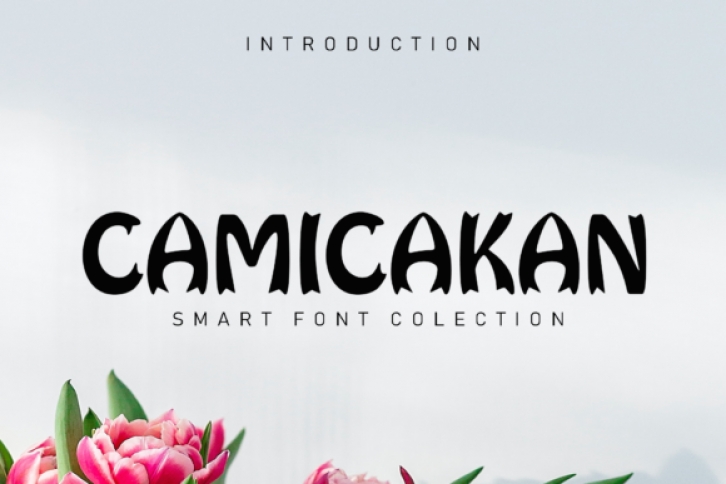
Camicakan is a display font that looks very cute and friendly. It has a very special style with nice curved letters. Its natural and unique style makes it perfectly suited to large pool designs. The only limit is your imagination!